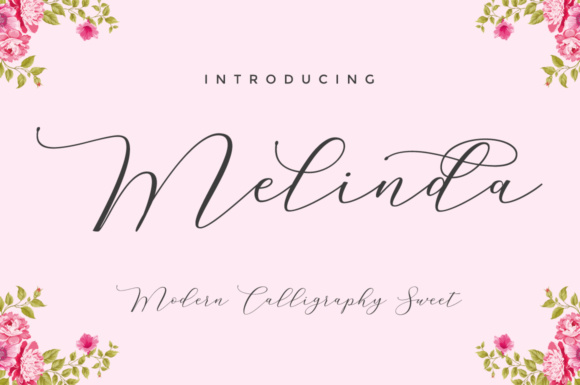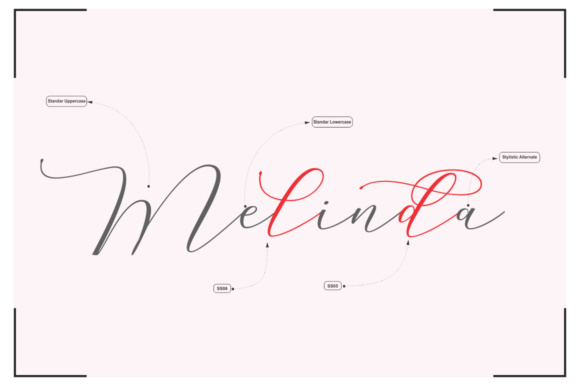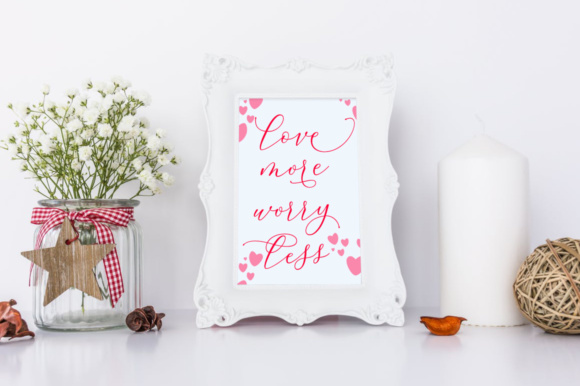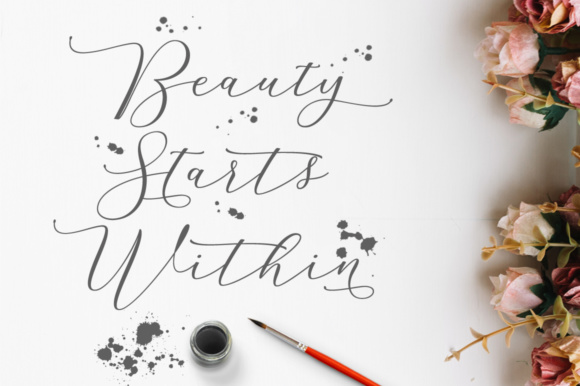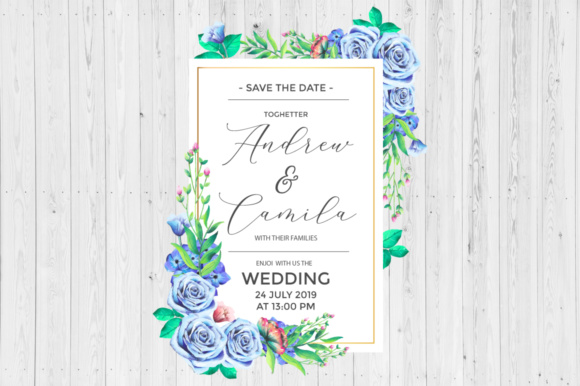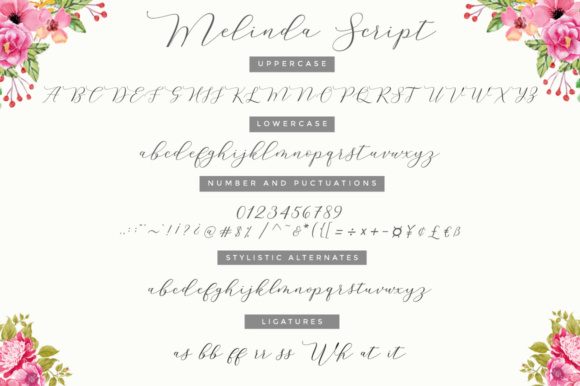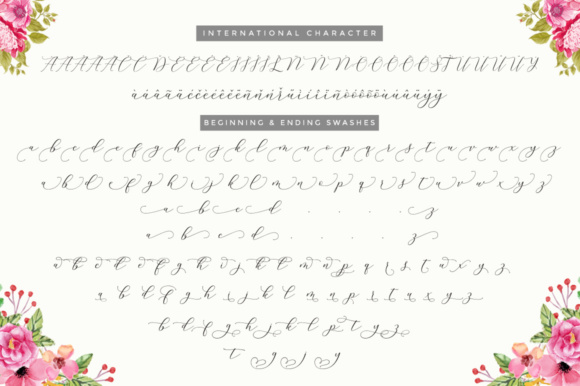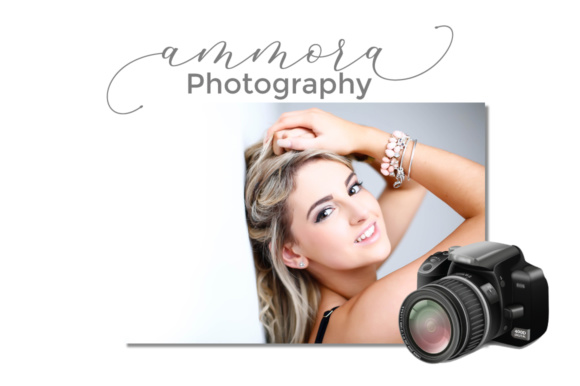
Melinda Script Font
About Melinda Script Font
Melinda Script is a beautiful and interesting calligraphy handwriting font. Melinda will give your design a realistic and modern style. Melinda looks sweet and is full of the best characters! Melinda can be used for invitations, mockups, branding card and much more!